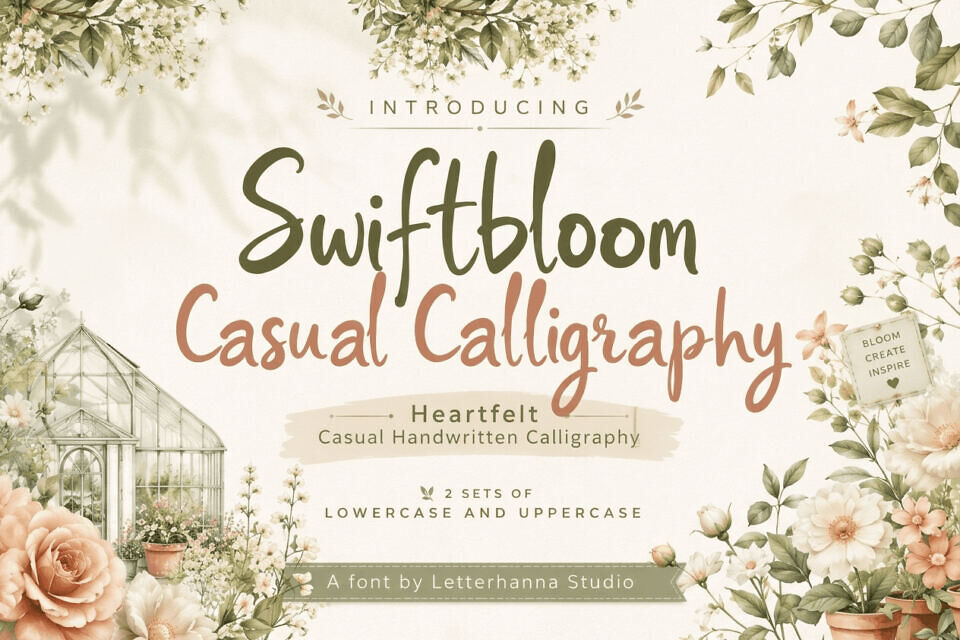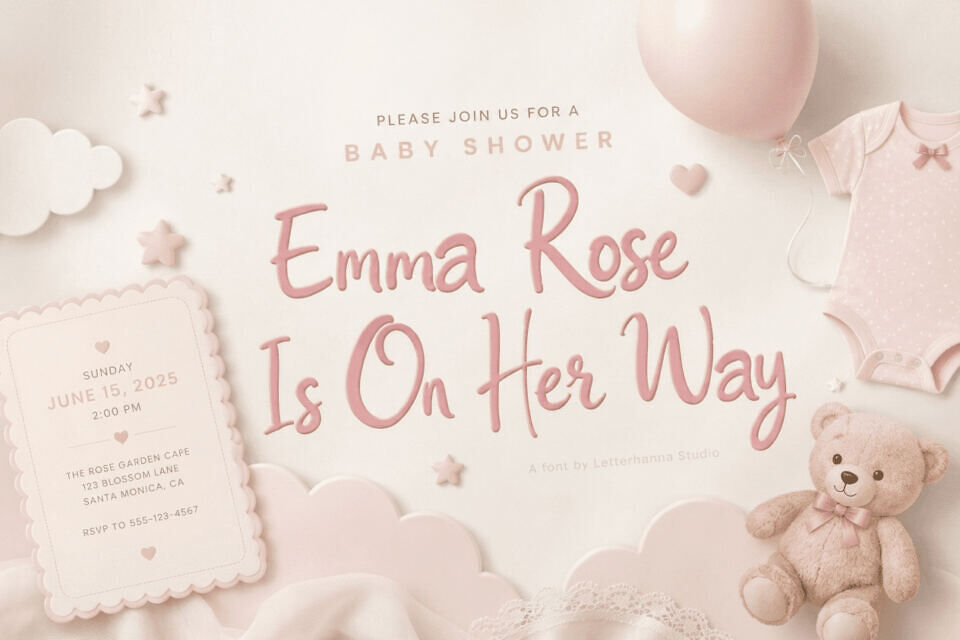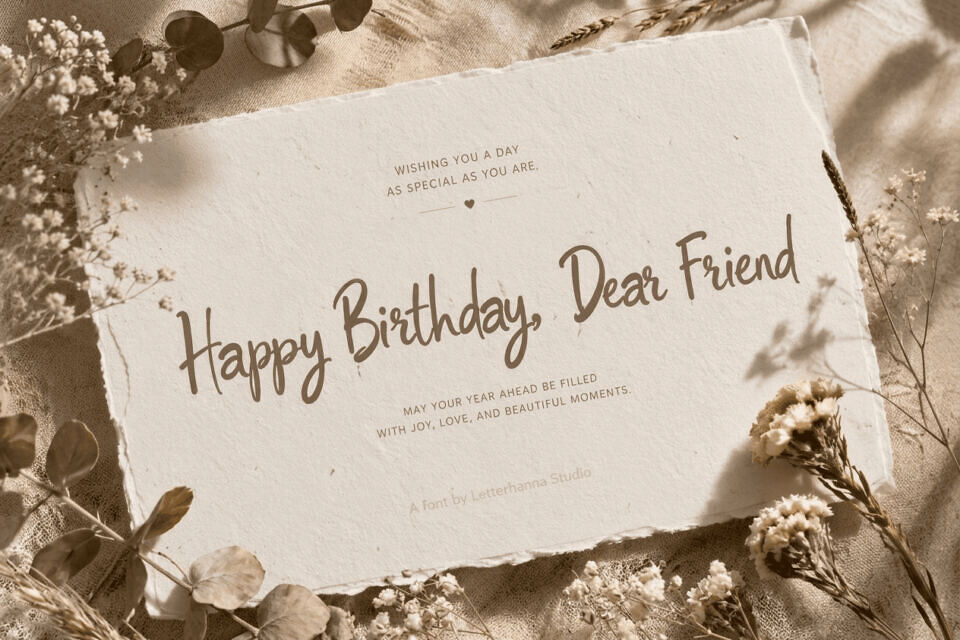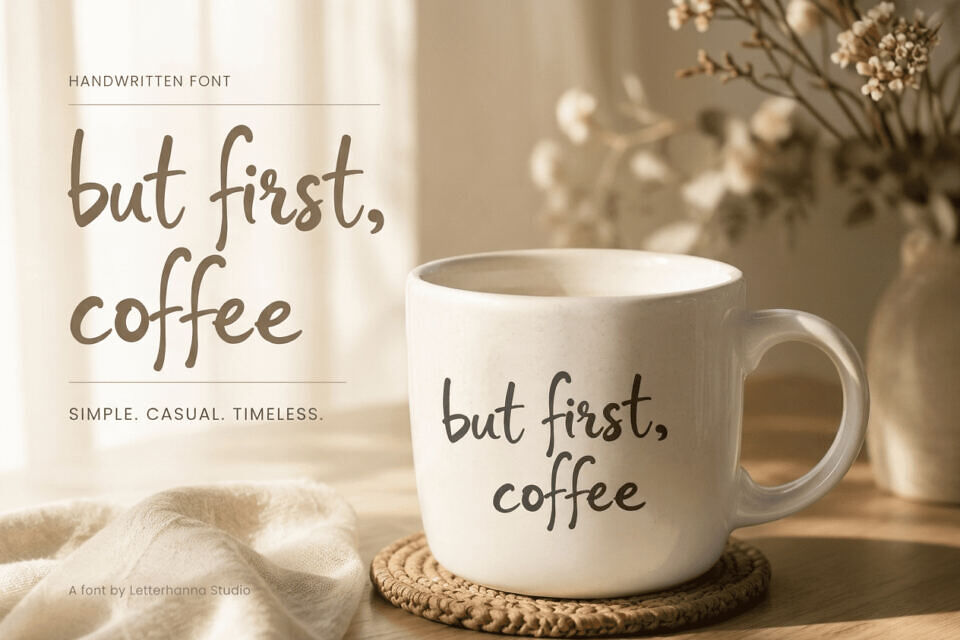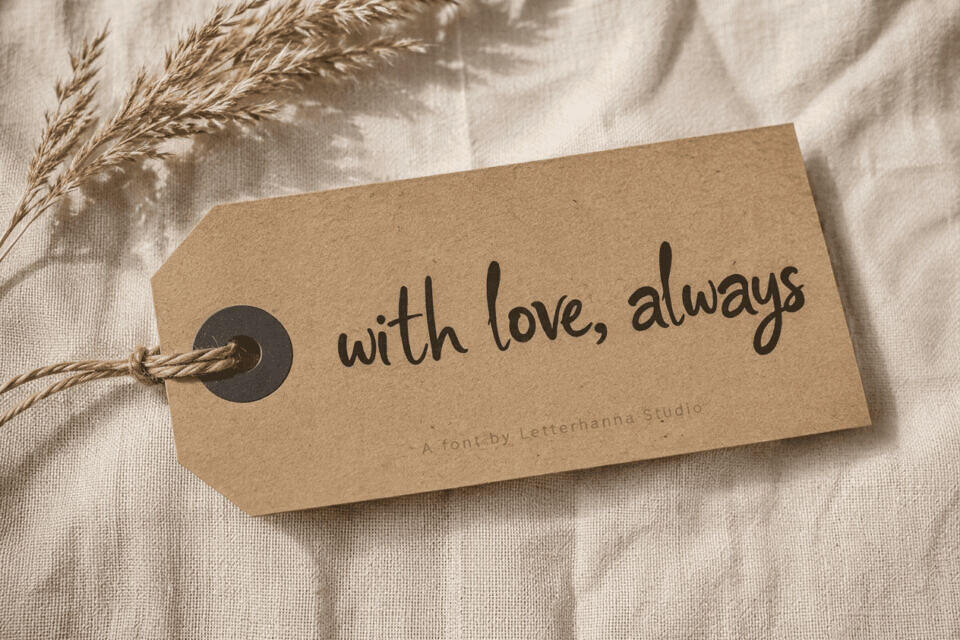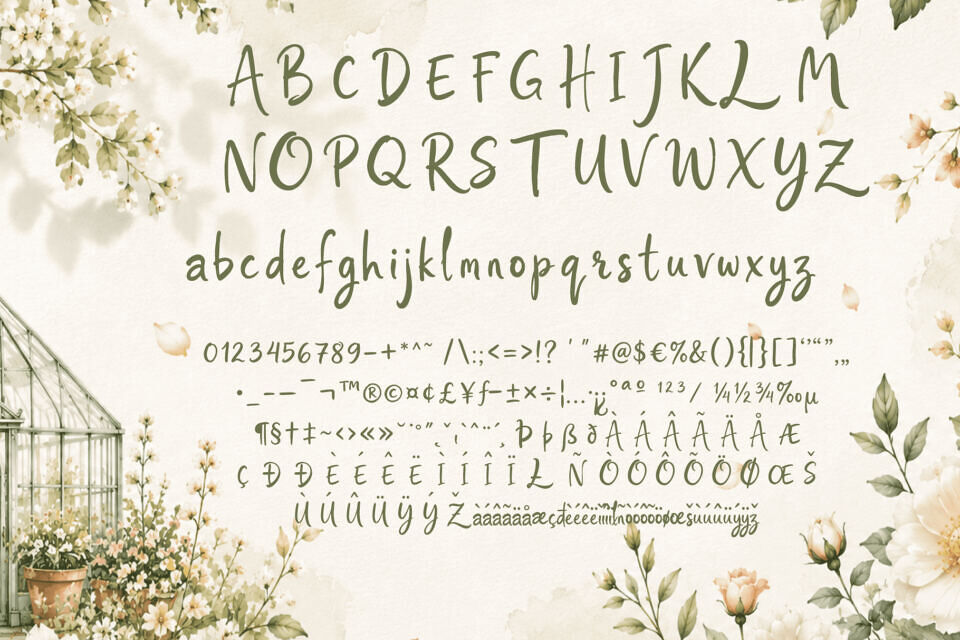
Swiftbloom is a casual, handwritten font with a lively feel. Its natural stroke variation and gentle curves create a sense of authenticity. The font balances legibility with personality, avoiding stiffness.
Born from a desire to find a middle ground between speed and beauty, Swiftbloom captures the confident flow of genuine handwriting, with each letter carrying a natural rhythm and momentum. The result is a warm, readable font that feels written in a single, uninterrupted motion.